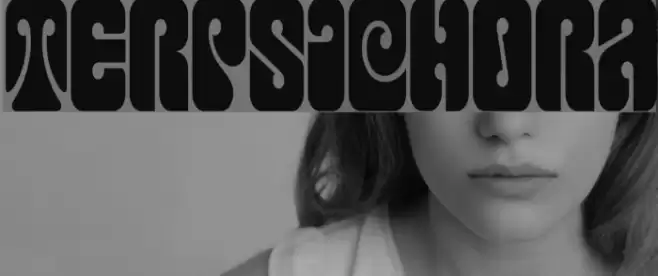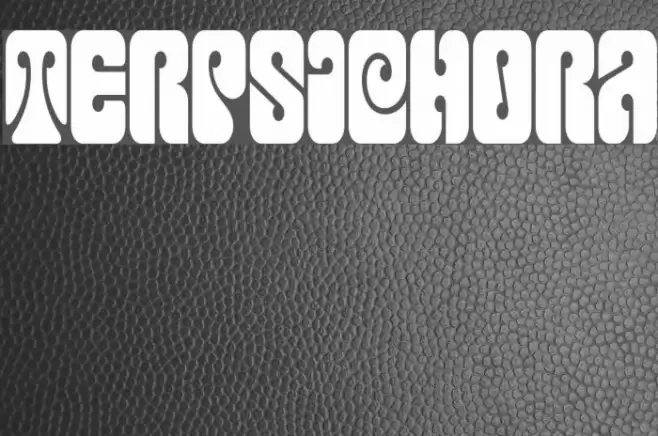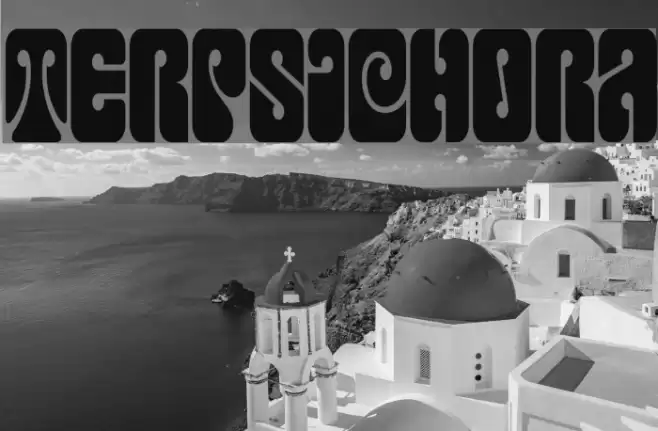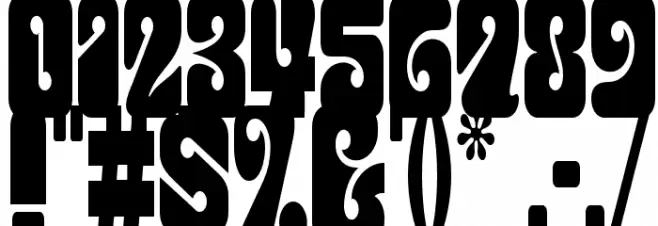
Terpsichora Font
Terpsichora Description
This font features a bold and playful design with a strong decorative flair. Each character is uniquely crafted with intricate curves and swirls, giving it a whimsical and artistic appearance. The letters are tightly spaced, creating a compact and cohesive look. The boldness of the font makes it highly visible and attention-grabbing, suitable for making a strong visual impact. The high contrast between the thick strokes and the negative space adds to its dramatic and eye-catching style. This font is ideal for projects that require a fun and lively aesthetic.
A bold, decorative font with playful curves and high contrast, perfect for eye-catching designs from Uncategorized fonts.
- Proposed Projects: Ideal for poster designs, album covers, branding for creative industries, and any project that requires a bold, artistic touch.
- Character Spacing: Tight